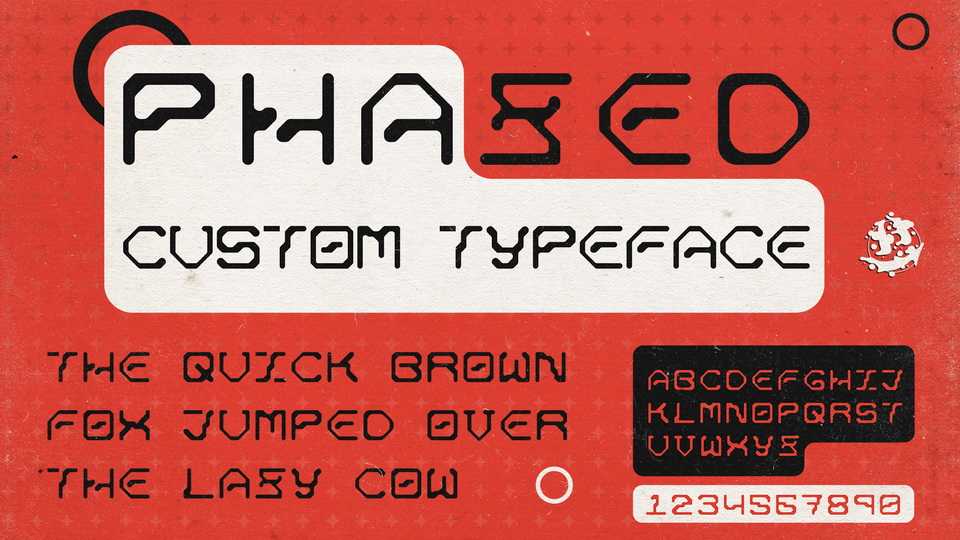
Download Phazed font, a custom display typeface inspired by the cyberpunk aesthetic as well as games such as Deus Ex. Phazed is perfect to create cyberpunk, sci fi and futuristic posters, game interfaces, packages and more.